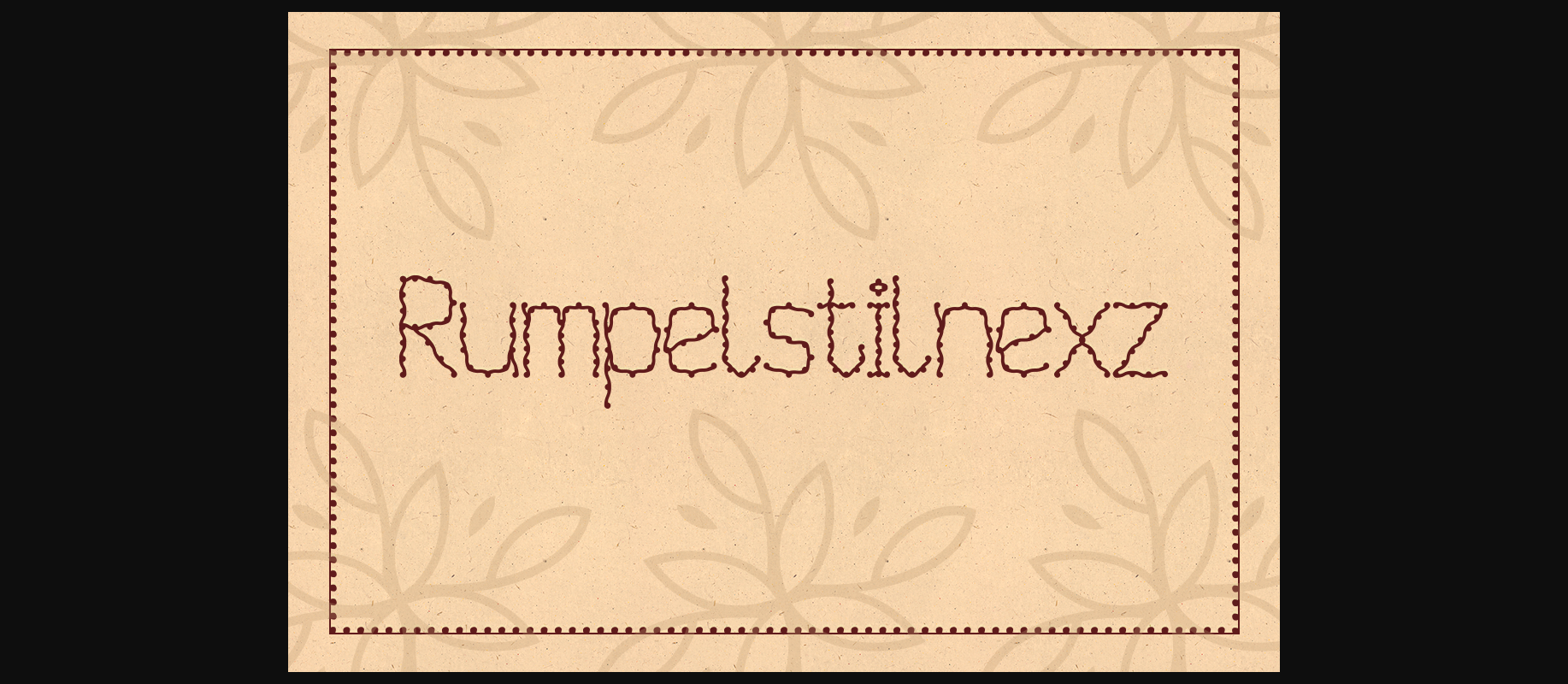
HomeDecorative FontsRumpelstilnexz Font Decorative Fonts Rumpelstilnexz Font FacebookXPinterestWhatsApp 1 of 1 About Rumpelstilnexz Font Rumpelstilnexz is a cool and relaxed decorative font, ideal for projects that necessitate a homemade feel. DOWNLOAD NOW People also explored Valentine Font Besty Font Monday Font Caty Catherine Hunts Font Giovanie Font Cyndrome Font Shampit Font Melted Font Autumn Shade Ii Font 329 0 TagsRumpelstilnexz Font Previous articleNexarumpelstil FontNext articleTetraclericton Font LEAVE A REPLY Cancel reply Comment: Please enter your comment! Name:* Please enter your name here Email:* You have entered an incorrect email address! Please enter your email address here Website: Save my name, email, and website in this browser for the next time I comment. Personal Use Free Makeba Font Personal Use Free Read more about this font Leorio Personal Use Free Read more about this font Delions Personal Use Free Read more about this font Good Mood Personal Use Free Read more about this font BLOG Free vs Paid Fonts: Why Investing in Premium Fonts Is Worth It Free vs Paid Fonts: Why Premium Fonts Are Worth It in 2025 The debate of free vs paid fonts continues in the design world. While... Modern Sans-Serif Fonts That Brands Love in 2025 To increase your work productivity, choose the most readable fonts. Elegant Wedding Invitation Fonts – Handwritten & Script Fonts